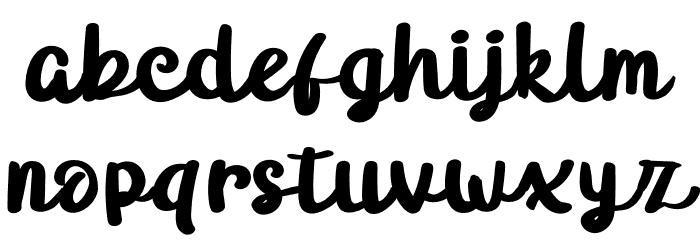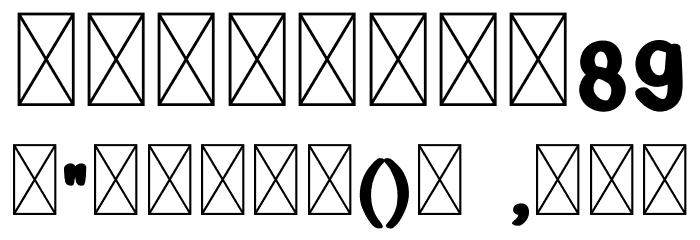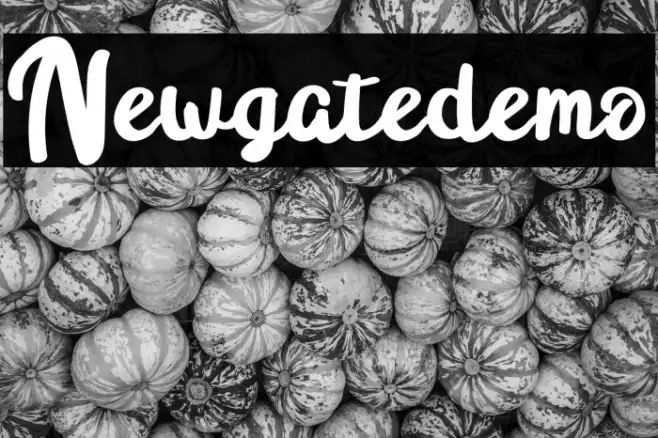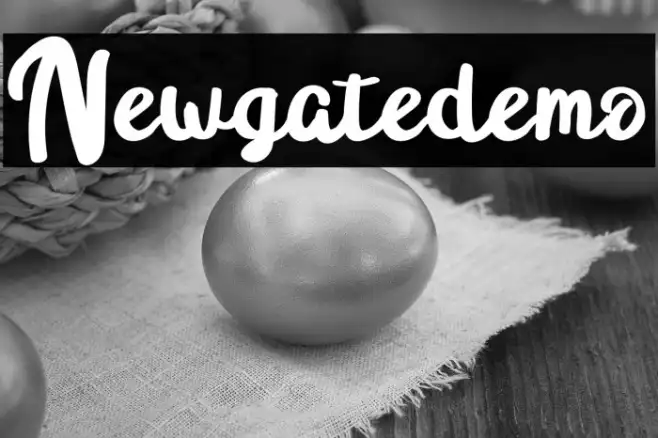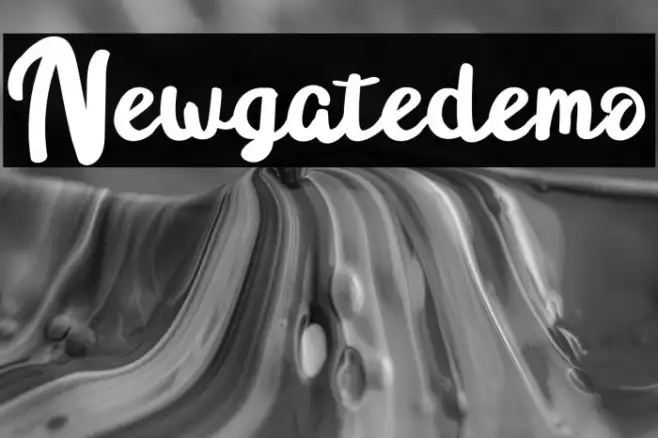
Newgatedemo Font
This font features a playful and bold script style, characterized by its flowing, cursive letterforms. The uppercase letters have a consistent height and a slight slant, giving them a dynamic appearance. The lowercase letters are rounded and maintain a smooth, connected flow, enhancing the script's handwritten feel. The numbers are bold and slightly rounded, matching the overall style of the alphabet. The font includes a variety of special characters, maintaining the same playful and bold aesthetic. This font is ideal for projects that require a touch of whimsy and creativity, such as invitations, greeting cards, or playful branding.
A bold, playful script font with flowing, cursive letterforms.
- Font: Newgatedemo
- Proposed Projects: Invitations, greeting cards, playful branding, creative posters.
- Category: Script
- Overall Style: Playful, Creative
- Use Case: Headlines, Logos, Invitations